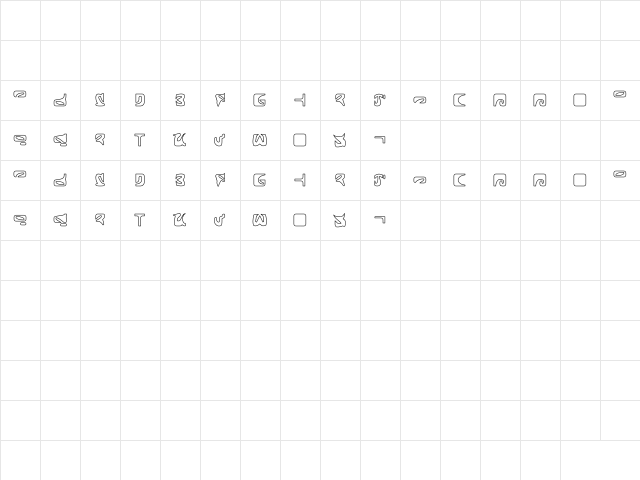
Romulus Hollow Plain Free Font
Romulus Hollow Plain
Design Context for Romulus Hollow
Romulus Hollow is a composed and adaptable typeface that performs quietly and consistently across a wide range of design contexts.
Pro Tip: Use Romulus Hollow in both headline and body roles to test its range before committing to a single application.